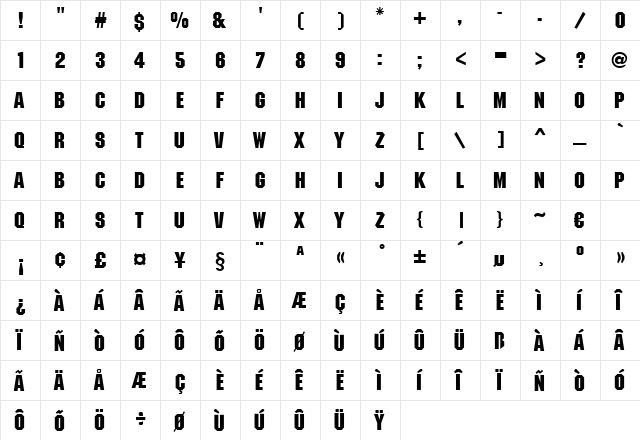
Paneel Regular
Design Context for Paneel Typeface
Paneel takes a measured approach to typography — its balanced proportions and neutral character make it a reliable workhorse for both digital and print work.